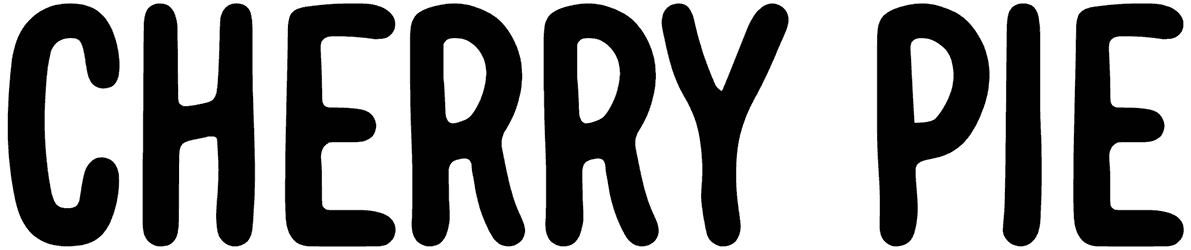
Cherry Pie Font
Cherry Pie can impress your target audience well if your brand is modern and edgy. The prominent letters of this food font can be well coordinated with your customers’ needs, and creating a personal space can arouse their confidence.
You can combine it with different designs and backgrounds to create a unique feeling for your brand and attract more customers. So if you are looking for a strong statement, ignore the lack of lowercase letters and press the download button confidently.